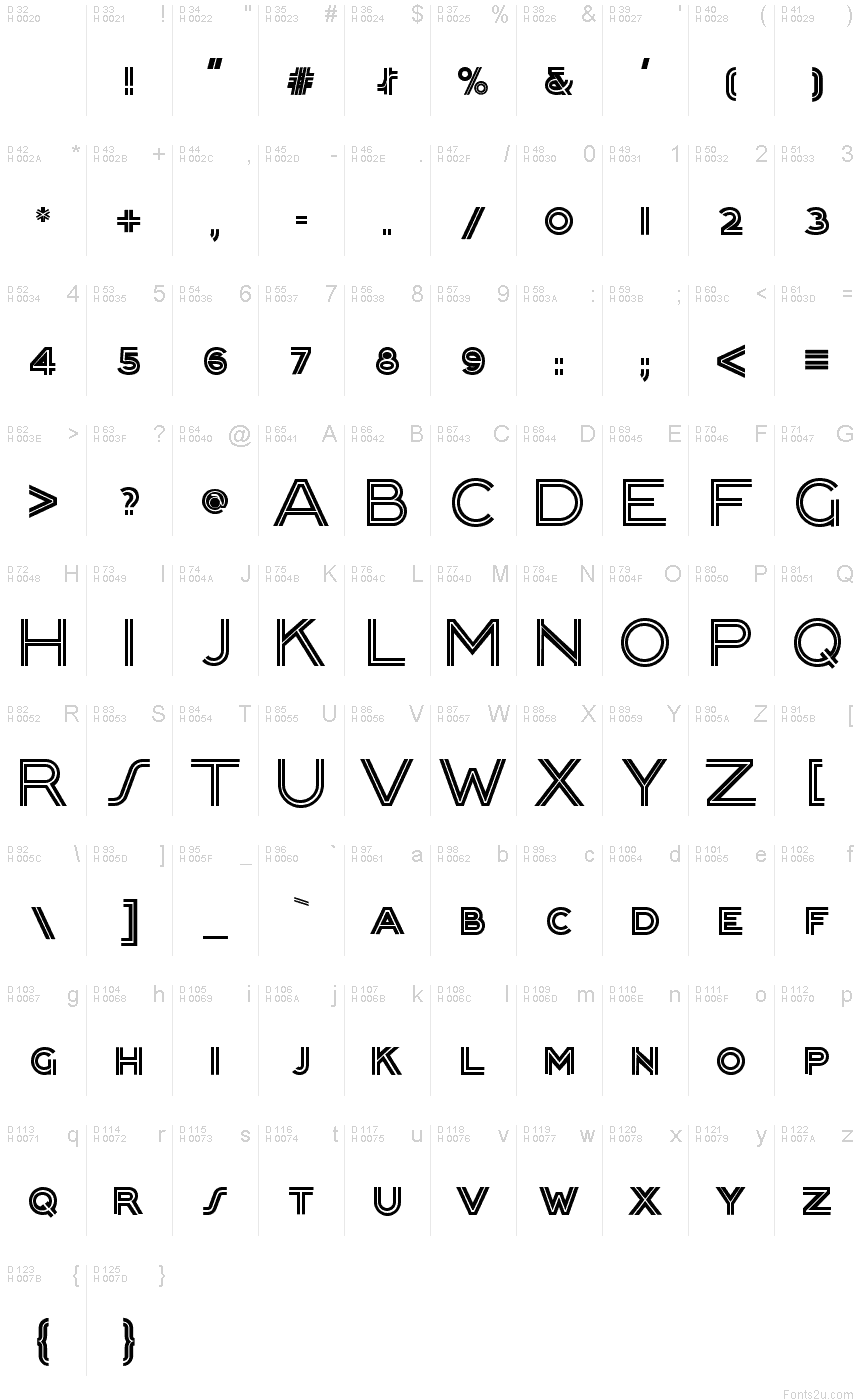
PackardClipperNF
Packard Clipper NF, a free Art Deco display font by Nick Curtis, draws on streamlined 1930s automotive lettering with parallel inline bands that turn each character into a small piece of chrome trim. That repeated striping creates a sleek, engineered rhythm across the font, while the rounded curves and sharp diagonals keep it rooted in period signage rather than generic retro styling.
It makes sense on posters, bar menus, title cards, event flyers, and packaging where a little machine-age glamour can carry the layout. The banded construction gives short words a crisp decorative edge, so the font can anchor logos, cocktail labels, diner branding, or vintage travel graphics without needing extra ornament.